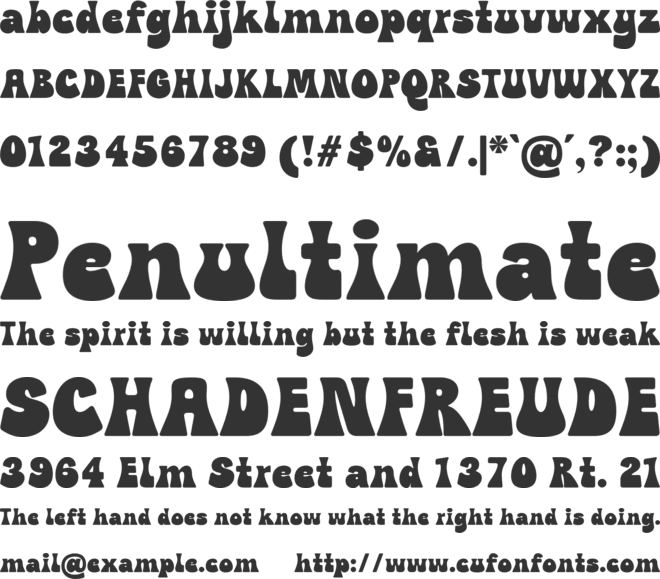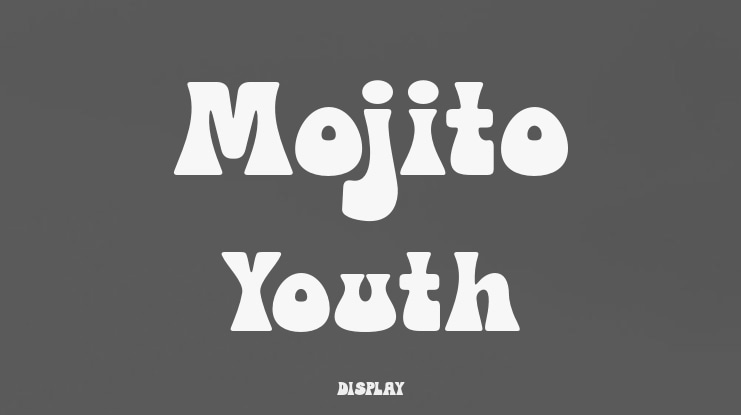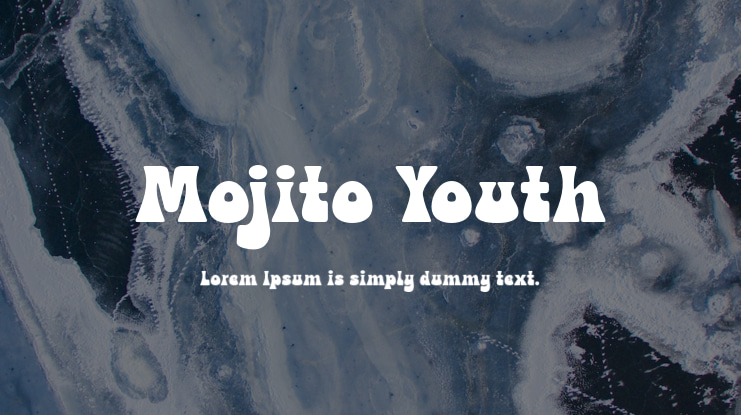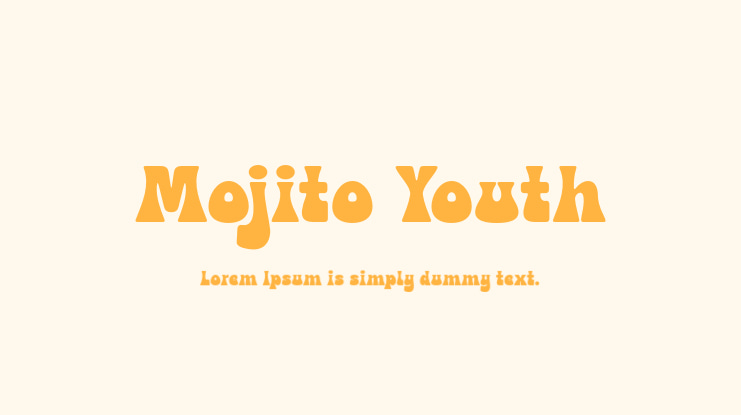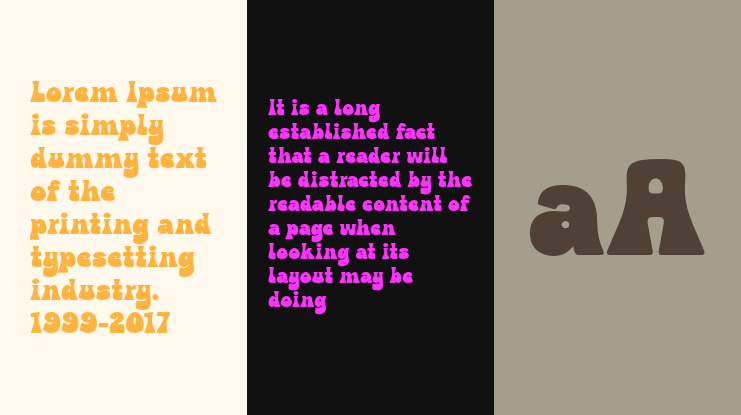
Mojito Youth is a charming display font that combines the timeless
charm of a vintage aesthetic with a vibrant retro spirit. This font was
carefully crafted to evoke a feeling of nostalgia while exuding a
youthful energy that aligns with contemporary design trends.